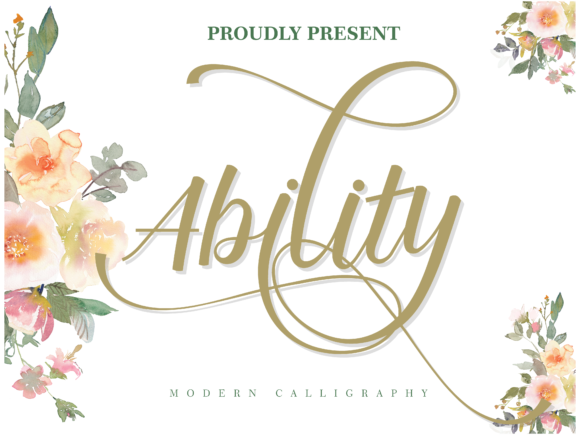
The Sweet Spot: Discovering the Charm of Ability Font
I’ll never forget the time I was working on a wedding invitation project, and my client asked for a font that was “sweet, romantic, and elegant.” I scoured the internet, tried out dozens of fonts, but nothing seemed to fit the bill. That was until I stumbled upon Ability Font. ✨ It was love at first sight! The delicate flow and handwritten charm of this font won me over, and I’ve been hooked ever since.
An Honest Review: What I Love (and What to Watch Out For)
• ✨ Delicate, handwritten flow that’s perfect for romantic projects
• 💕 Beautifully crafted to evoke a sense of sweetness and charm
• 🎨 Versatile and can be used for a variety of projects, from wedding invites to social media graphics
A Few Quirks to Keep in Mind
• 🤔 Limited character set, so be mindful of language and special characters
• ⚠️ May not be suitable for body text or long-form content due to its elegant, cursive nature
The Story Behind Ability Font
Ability Font was designed by a talented typographer who wanted to create a font that captured the essence of romance and sweetness. Inspired by traditional handwritten scripts, the designer carefully crafted each letterform to evoke a sense of elegance and charm. The result is a font that’s perfect for any project that requires a touch of whimsy and sophistication.
Q: What type of projects is Ability Font best suited for?
A: Ability Font is perfect for projects that require a touch of romance and elegance, such as wedding invitations, social media graphics, and wall displays.
Q: Is Ability Font available in multiple languages?
A: Ability Font may have limited language support, so be sure to check the font’s character set before using it for a project that requires multiple languages.